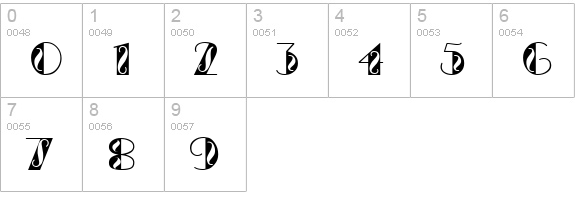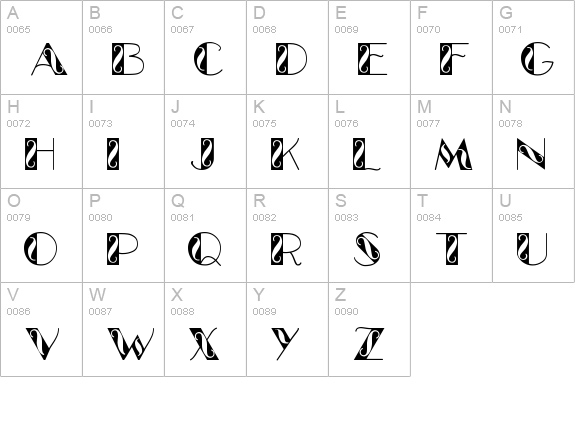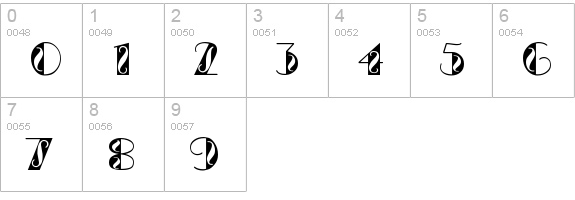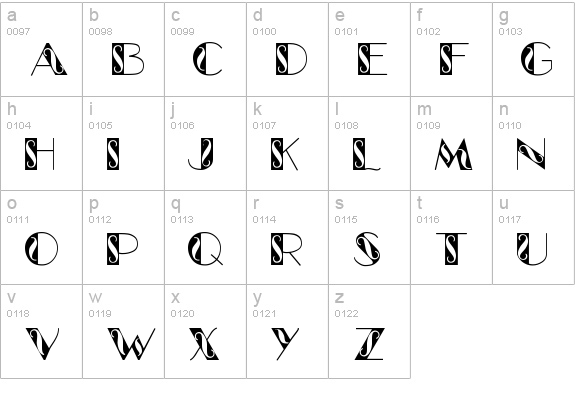
GlitzyCurl Regular is the standard, neutral variant in the GlitzyCurl typeface family \xE2\x80\x94 well suited to general body text, paragraphs, and standard typographic work.
GlitzyCurl Regular font is a stylish and elegant typeface that exudes sophistication and charm. With its delicate curls and graceful curves, this font is perfect for adding a touch of glamour to your designs. Whether you're creating invitations, logos, or branding materials, GlitzyCurl Regular will surely make a statement. And the best part? GlitzyCurl Regular font is completely free to download at FontsMarket.com! So go ahead and elevate your projects with this exquisite font, and let your creativity shine with every letter you write.